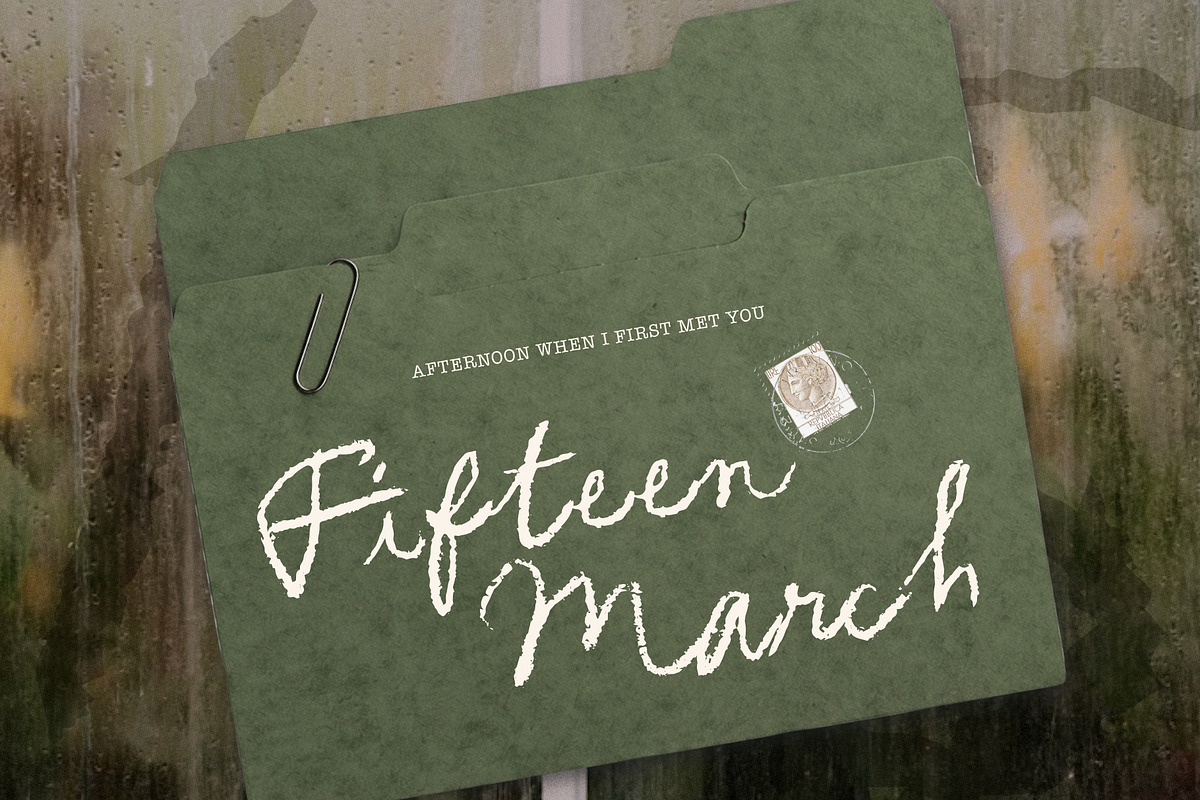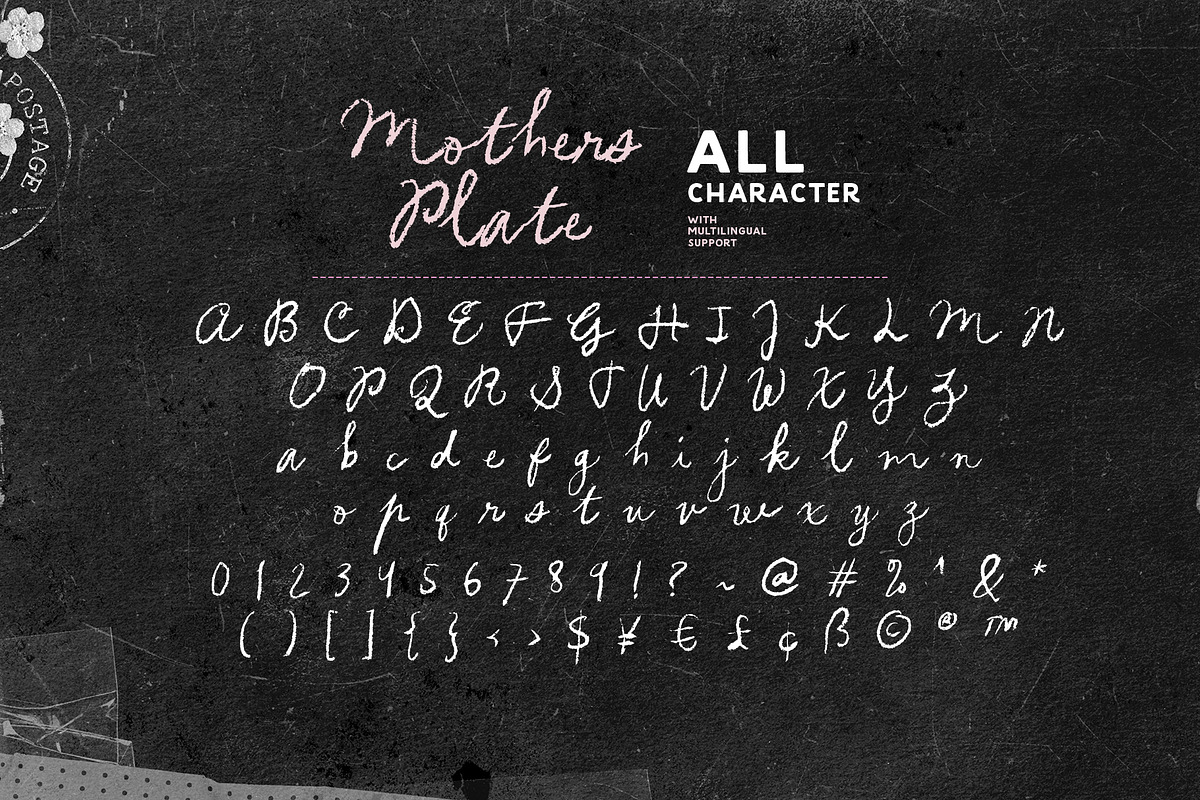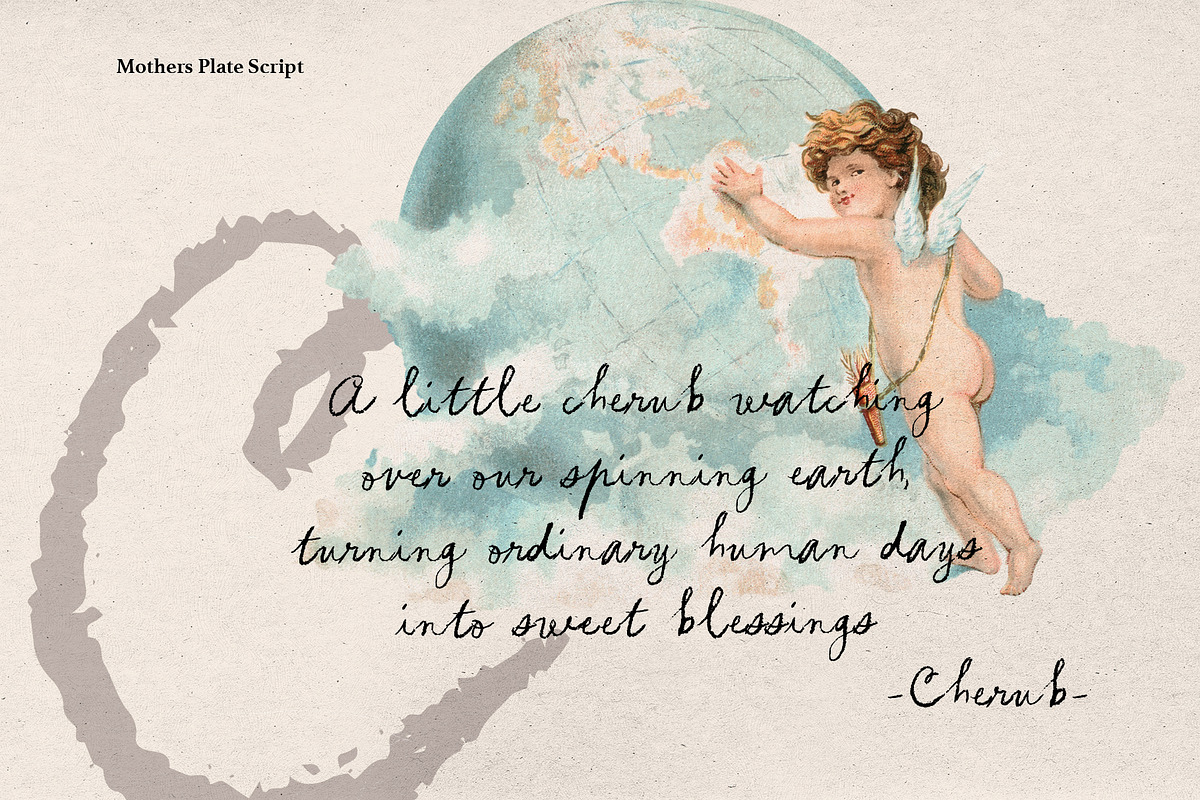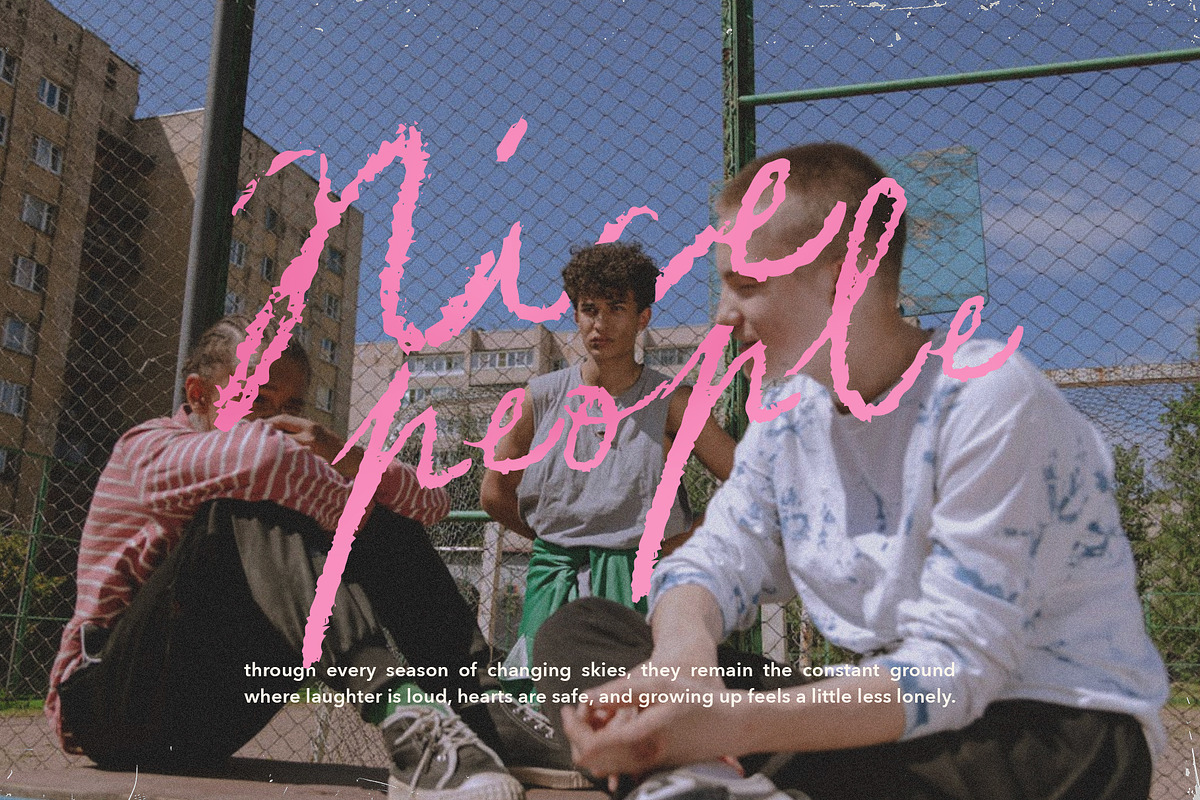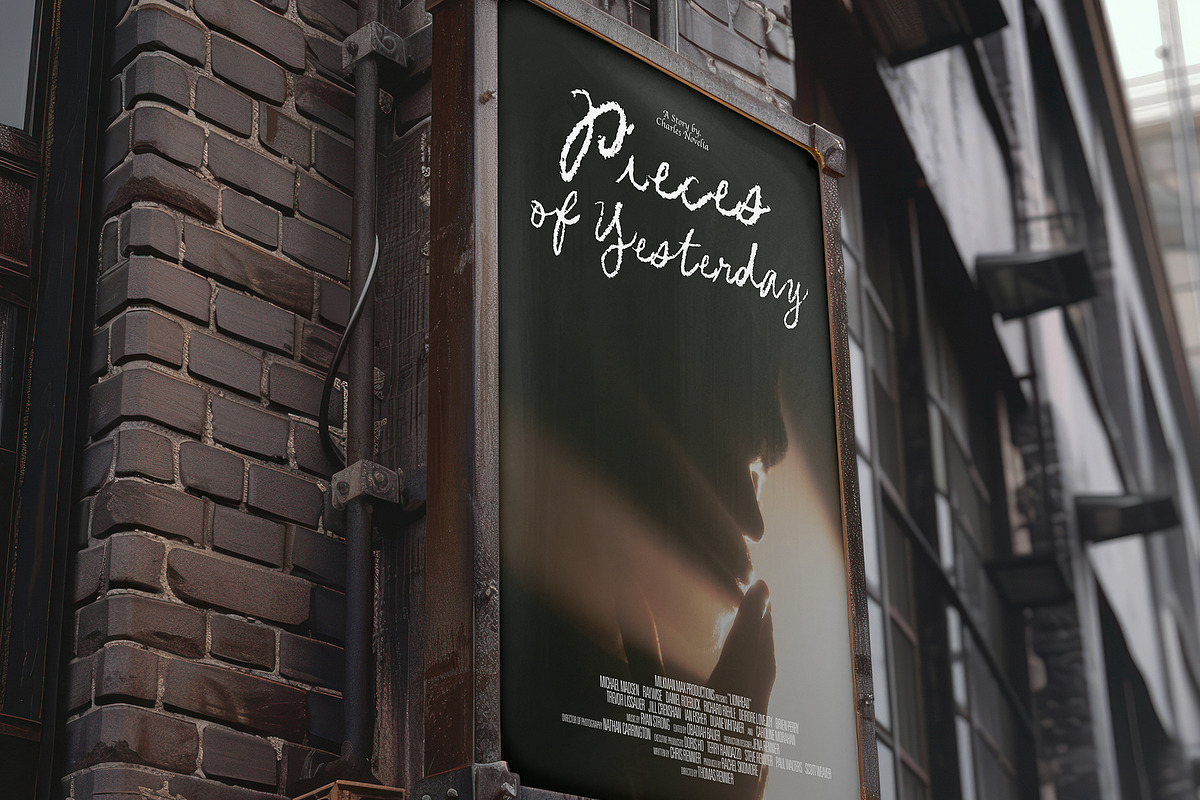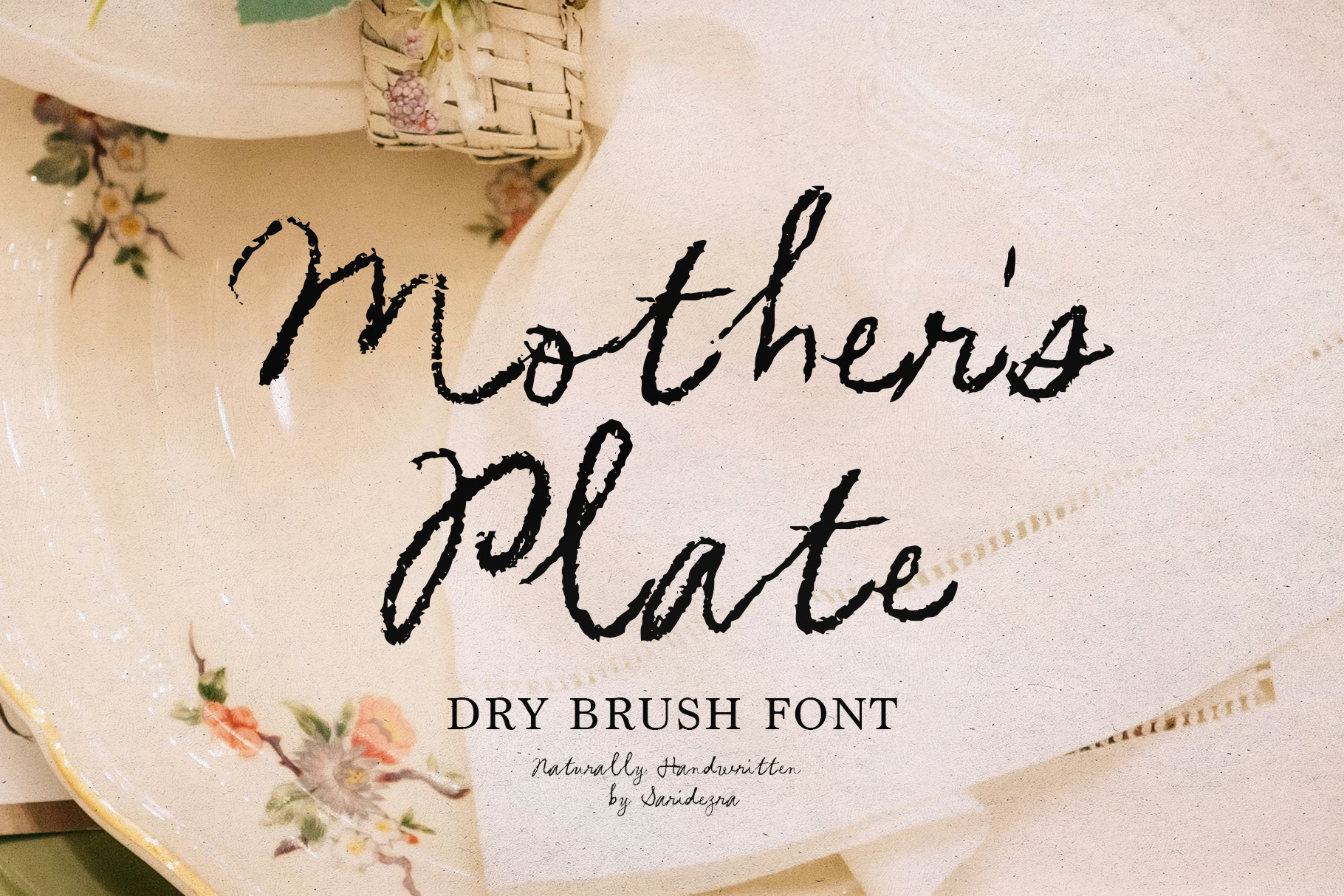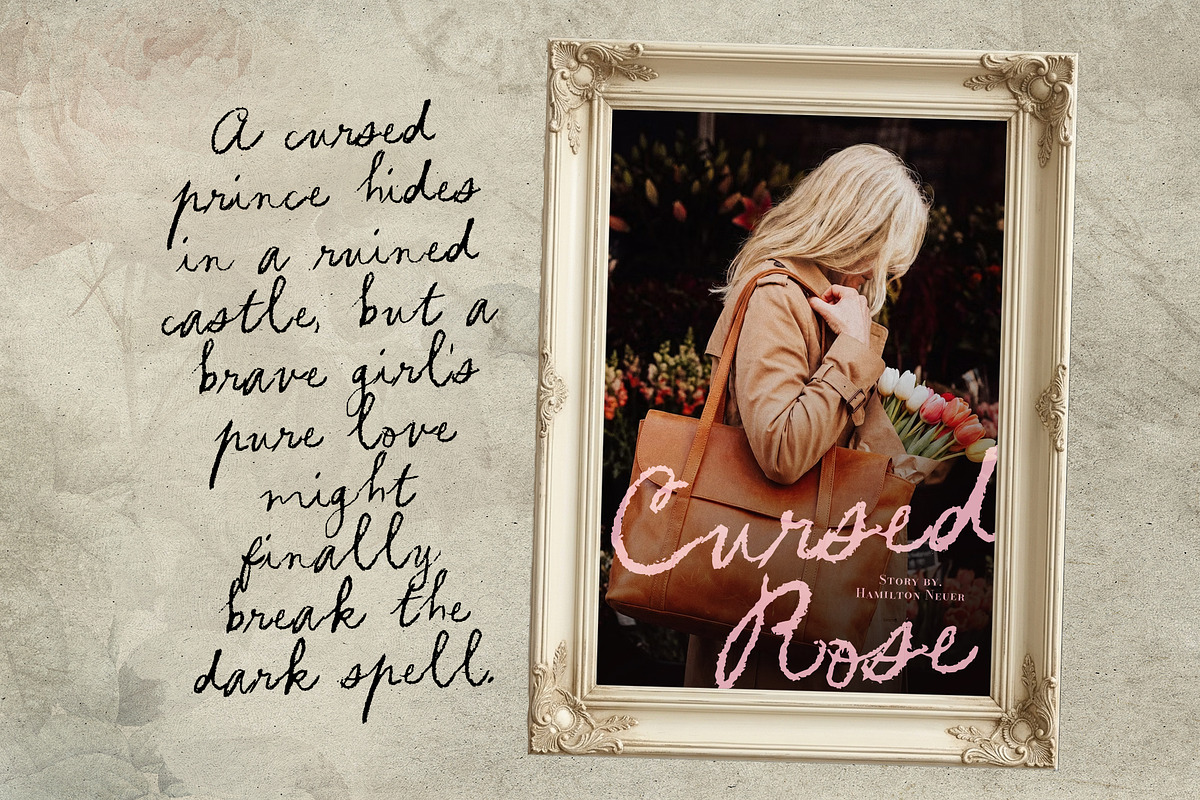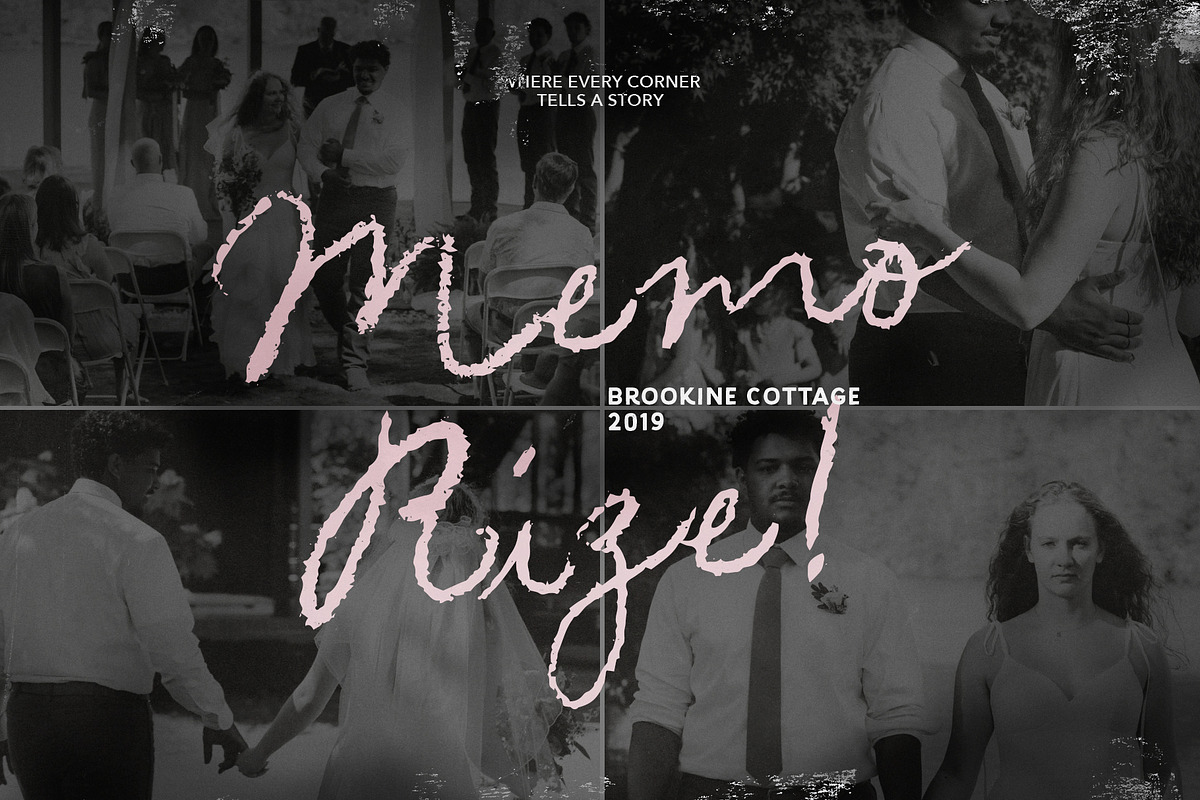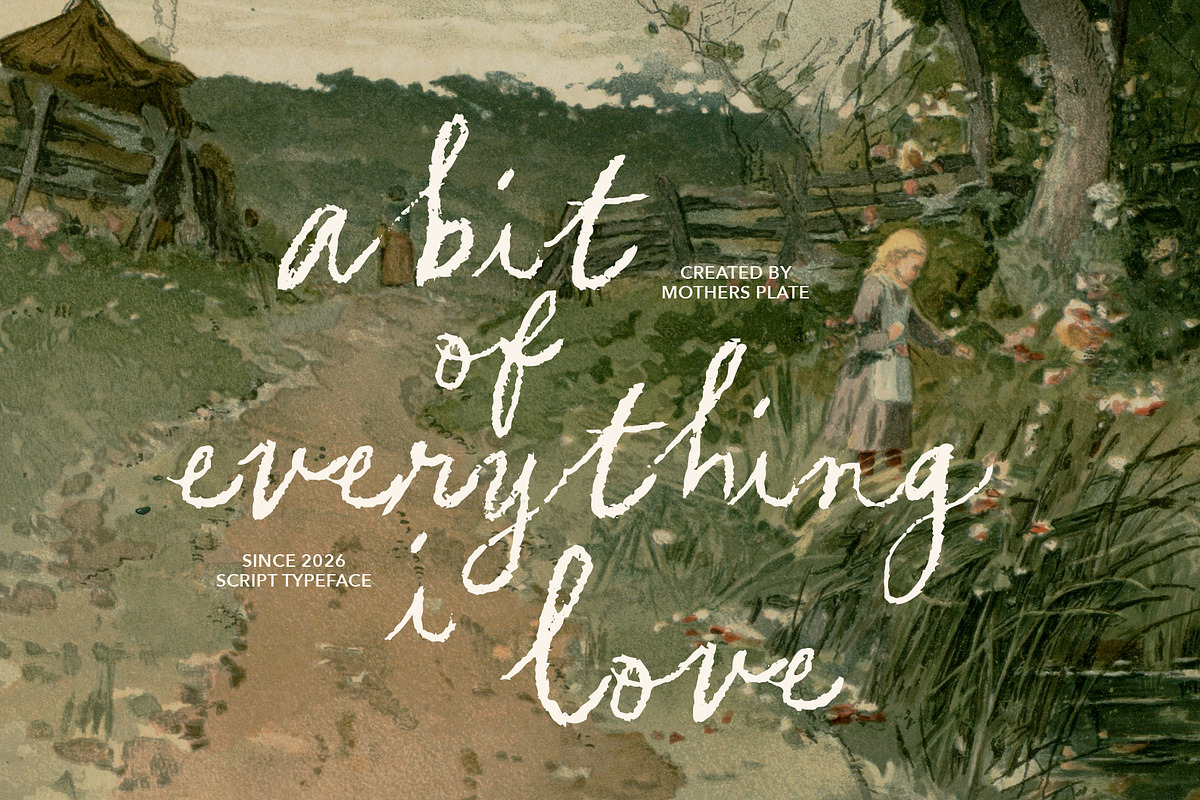
Mother's Plate - Dry Brush Font
Mother's Plate is a handwritten brush font with dry and rough looks. You can use this font for any occasions such as quotes, wedding invitations, branding, or any project that need vintage and old vibes. With rough edge, you can make your designs look naturally made by traditional brush. This font also support multi language.